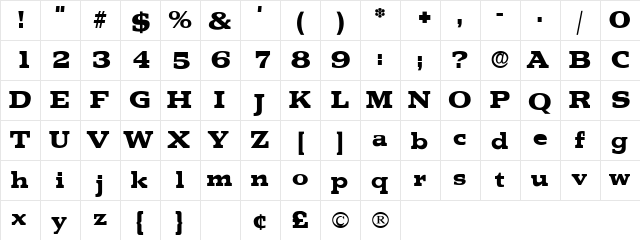
Tekton Display SSi Regular
Design Context for Tekton Display SSi Typeface
Tekton Display SSi brings ornamental detail and strong personality to headlines and identities, where visual impact matters more than quiet functionality.
Font Pairing: Pair with a clean neutral sans-serif for body copy to let Tekton Display SSi's character lead without overwhelming the composition.
Pro Tip: Treat Tekton Display SSi as the centrepiece of your typographic hierarchy. One strong heading set in a decorative face can carry an entire layout.